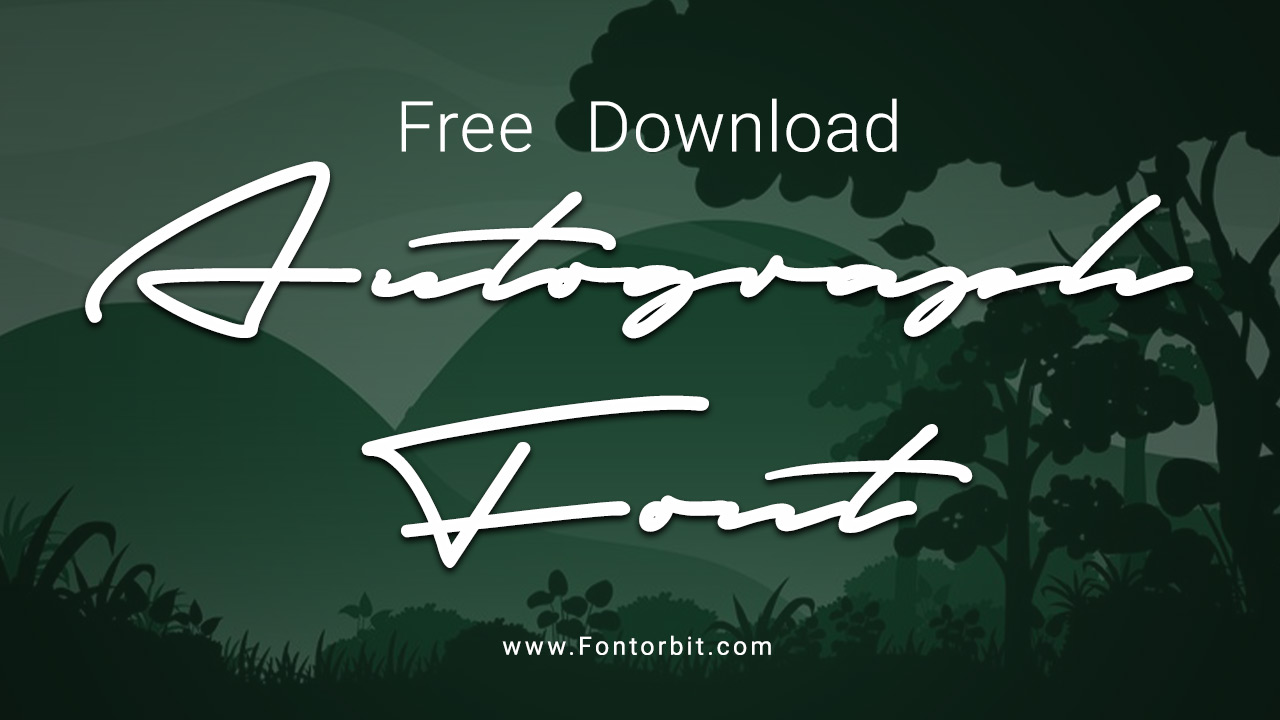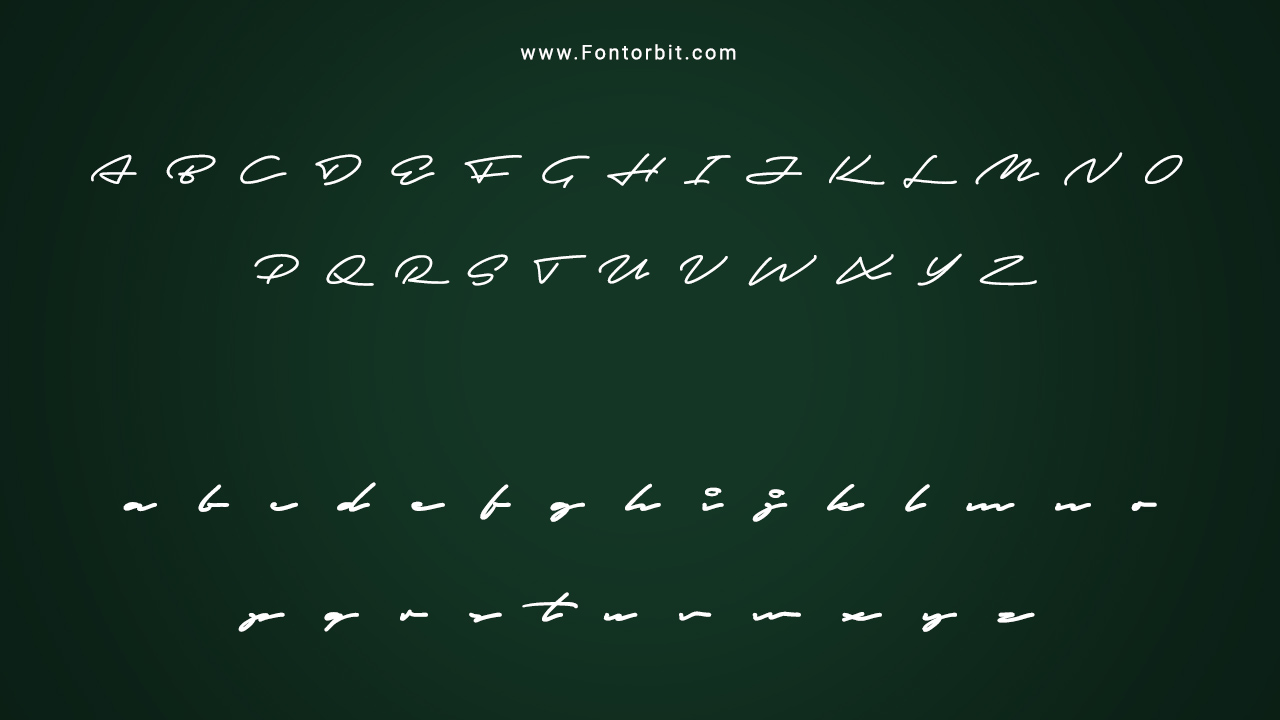
Autograph font is a refined and sophisticated script font designed by Creativeletter. Released on Jul 10, 2021, this font belongs to the Autograph family, known for its elegant and flowing style.
With its graceful curves and stylish appearance, Autograf is perfect for adding a touch of class to personal and professional designs, from wedding invitations to high-end branding projects. Its versatility and distinctive flair make it a popular choice for designers seeking to make a memorable impact with their typography.
The Autograph Font Family Includes
The Autograf family features a range of elegant scripts ideal for various design projects. Here are the key styles featured in the family:
a. Autograf Regular
Notable Uses Of Autograph
Autograf is frequently used for:
- Personal invitations and greeting cards
- Elegant branding and logos
Settings where a touch of sophistication is desired are enhanced by Autograf. It is ideal for wedding invitations, high-end branding materials, and artistic project titles. Its flowing nature adds a personal touch to any design.
Autograf is a versatile and attractive script font suitable for various elegant design needs. Its flowing style and multiple weights make it a valuable addition to any designer’s toolkit.
Whether you’re working on personal projects or professional designs, Autograf offers a unique and sophisticated touch.